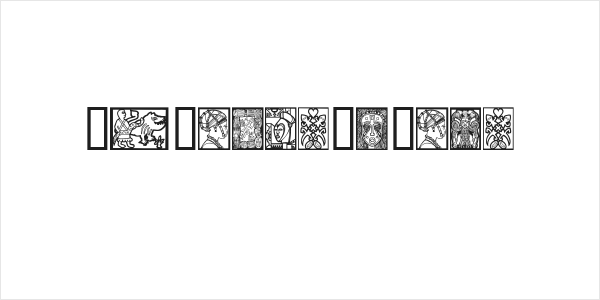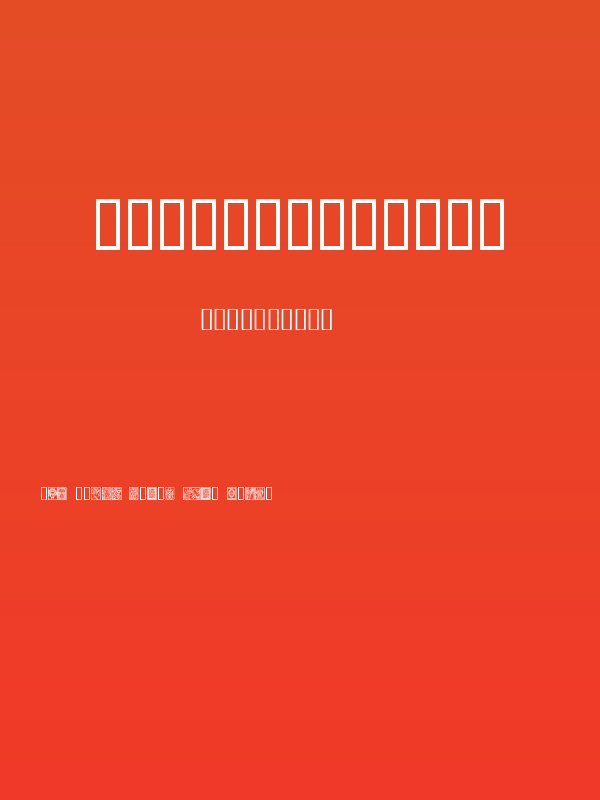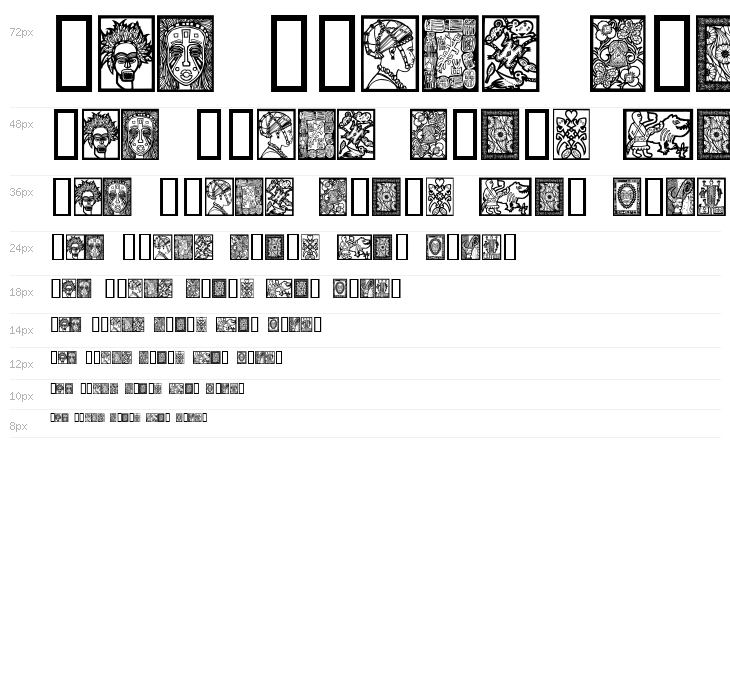
AfricanDesign Font
AfricanDesign Description
A decorative display font featuring intricate, hand-drawn African-inspired motifs and illustrations within each character, evoking traditional art and cultural symbolism. The glyphs are highly detailed and ornamental, making each letter a miniature artwork.
| Overall Style | Decorative, Cultural, Artistic |
| Use Case | Headlines, Logos, Posters, Artistic projects |
| Proposed Projects | Posters, cultural event branding, album covers, art exhibitions, book covers, educational materials about African heritage. |